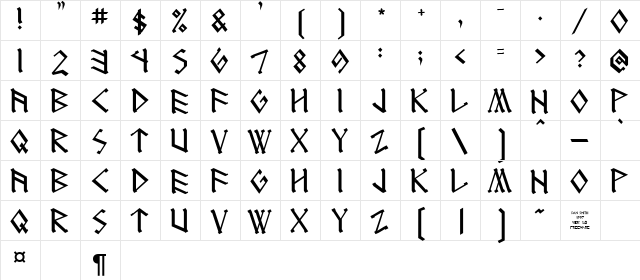
RUNEnglish 1 Regular
Design Context for RUNEnglish 1 Typeface
RUNEnglish 1 is a composed and adaptable typeface that performs quietly and consistently across a wide range of design contexts.